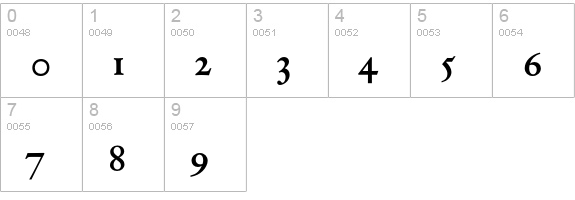
DTLVandenKeereSD-Bold is a strong, high-contrast variant in the DTLVandenKeereSD typeface family \xE2\x80\x94 well suited to headlines, attention-grabbing titles, and strong calls-to-action.
The DTLVandenKeereSD-Bold font is a striking and bold typeface that commands attention with its strong, confident letterforms. Perfect for headlines, titles, and other attention-grabbing text, this font exudes power and authority while maintaining a sense of elegance and sophistication. Its sharp serifs and clean lines make it a versatile choice for a variety of design projects. And the best part? DTLVandenKeereSD-Bold is available for free download at FontsMarket.com, making it easily accessible for designers and creatives looking to add a touch of boldness to their work. Don't miss out on this opportunity to enhance your designs with this impactful and stylish font. Download DTLVandenKeereSD-Bold today and take your typography to the next level.